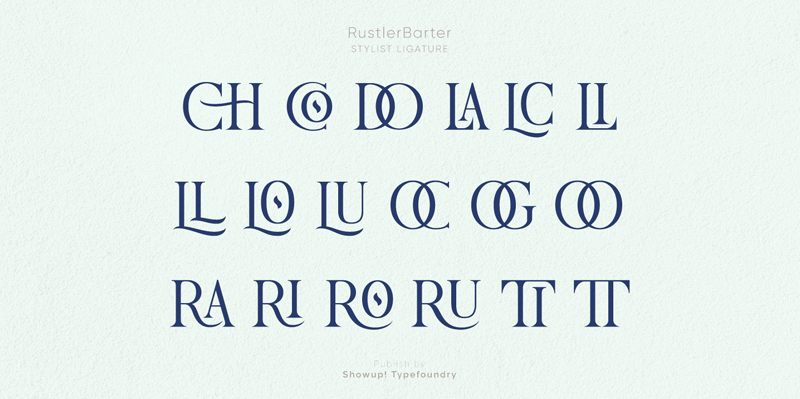
Font name: | Rustler Barter |
Author: | Aulia Rahman |
RustlerBarter is an elegant display font inspired by the Art Deco era. It perfectly represents vintage aesthetics in a modern and minimalist way. The font includes special uppercase letters, alternate characters, and beautiful ligatures. Furthermore, the font is perfect for elegant logo design, packaging, or invitation cards. --- The font is FREE for PERSONAL USE. Contact me a mail for commercial use and questions: info.showup33@gmail.com --- Link to the full version and commercial license: https://www.creativefabrica.com/designer/showup-typefoundry/ref/379040/ --- https://www.behance.net/Aulia_Rahman https://www.instagram.com/showup.tf/ |